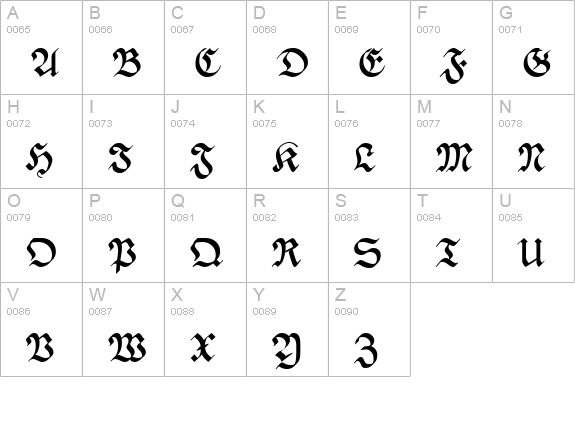
PhederFrack Bold Font Details
PhederFrack Bold is a strong, high-contrast variant in the PhederFrack typeface family \xE2\x80\x94 well suited to headlines, attention-grabbing titles, and strong calls-to-action.
Introducing PhederFrack Bold, a captivating and versatile font that exudes an air of boldness and confidence. This unique typeface is designed to make a statement and leave a lasting impression on any design project. With its strong, thick strokes and stylishly sharp edges, PhederFrack Bold commands attention and demands to be noticed. What sets PhederFrack Bold apart is not only its striking design, but also its incredible versatility. Whether you're working on a logo, headline, or a poster, this font is sure to elevate your design to new heights. Its strong and commanding presence effortlessly captures the essence of any message, making it perfect for branding, advertising, and editorial projects. But what truly makes PhederFrack Bold stand out is the fact that it is freely available to download at FontsMarket.com. Yes, you read that right - this extraordinary font can be yours without any cost. We believe that creativity should be accessible to all, and that's why we've made PhederFrack Bold available for free. So, whether you're a professional designer or a budding enthusiast, you can now add this exceptional font to your collection without breaking the bank. Download PhederFrack Bold today and unlock a world of design possibilities. Let its bold and captivating charm breathe life into your projects and allow your creativity to soar to new heights. Whether you're looking to make a powerful statement or simply add a touch of sophistication, PhederFrack Bold is the perfect choice. Don't miss out on this incredible opportunity - head over to FontsMarket.com and grab this extraordinary font for free!